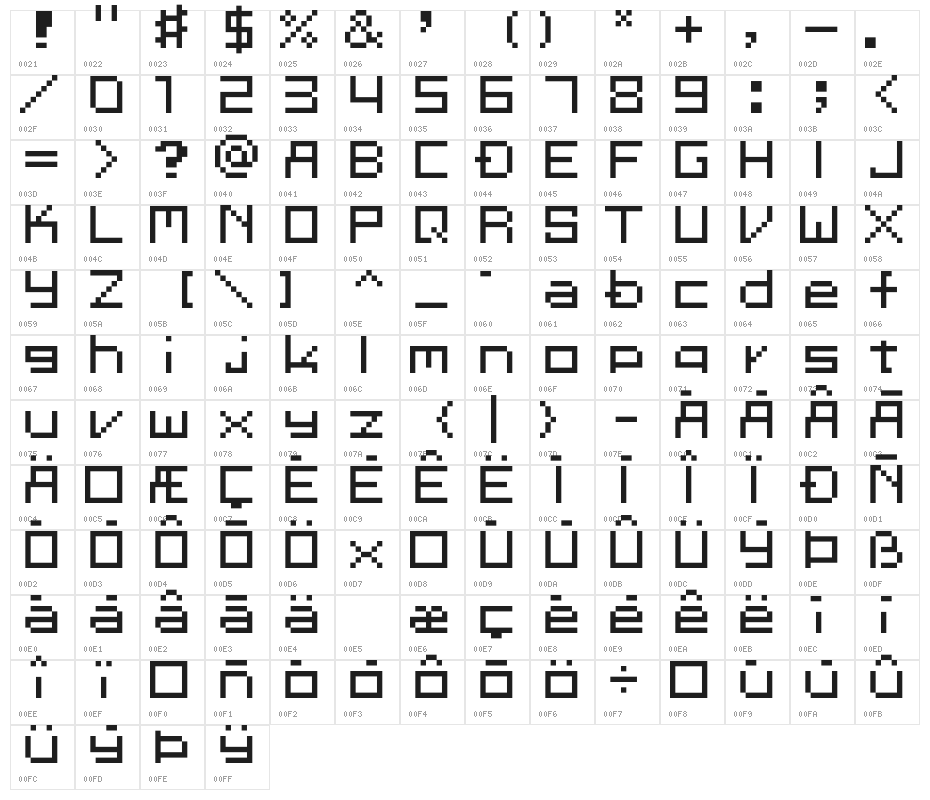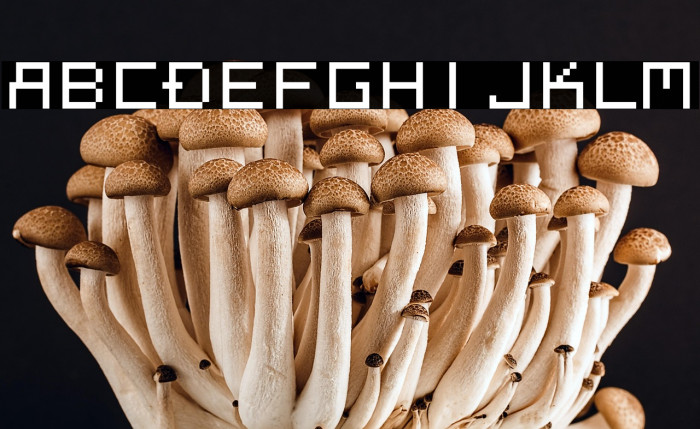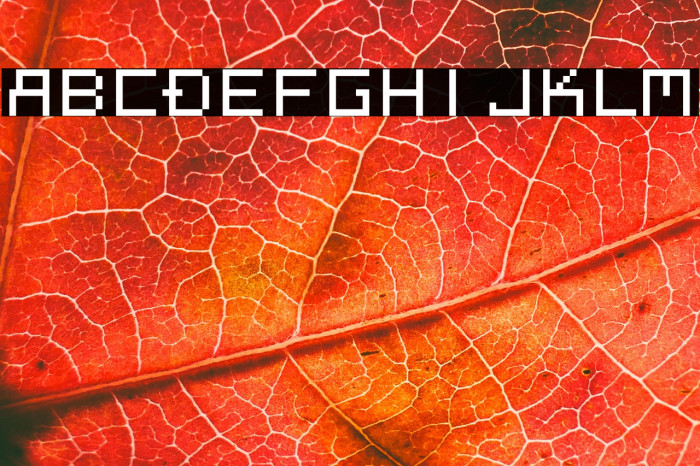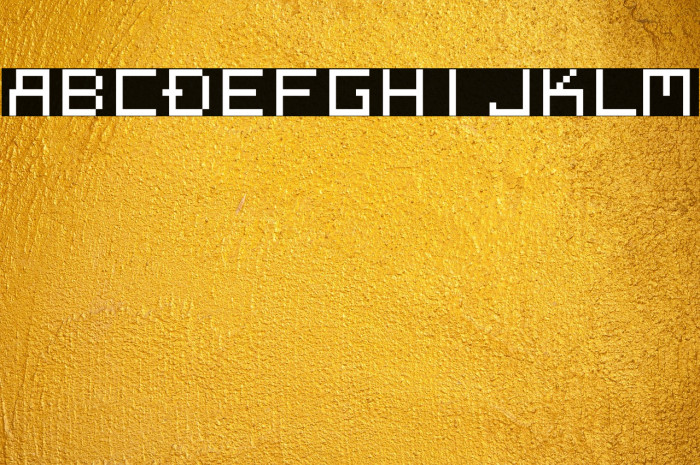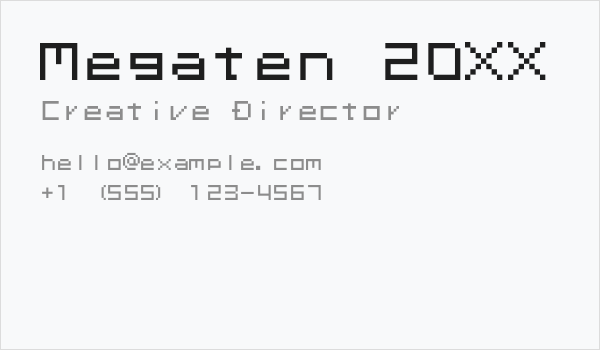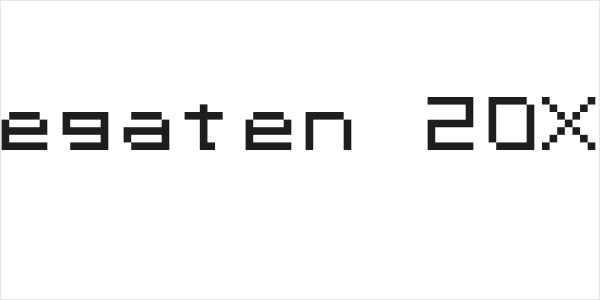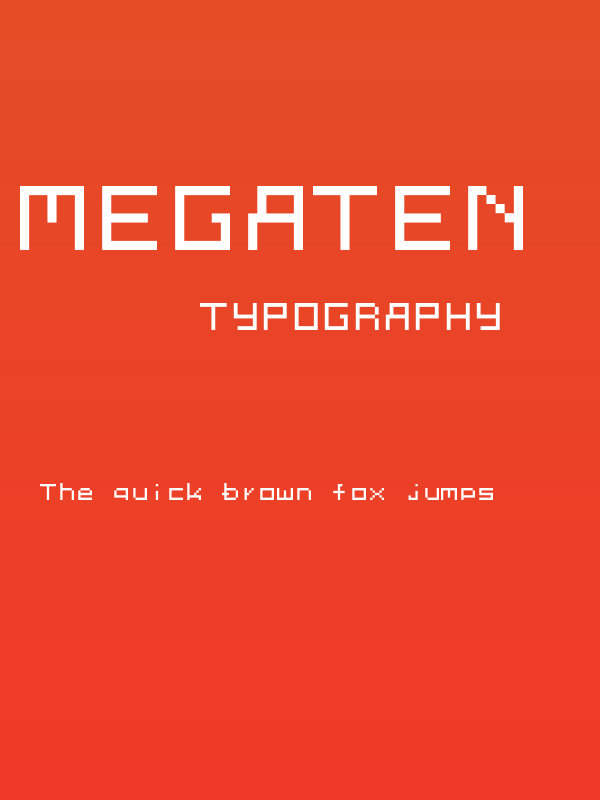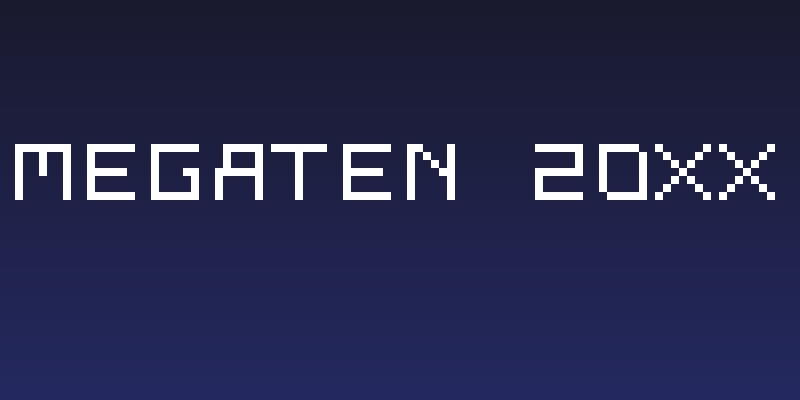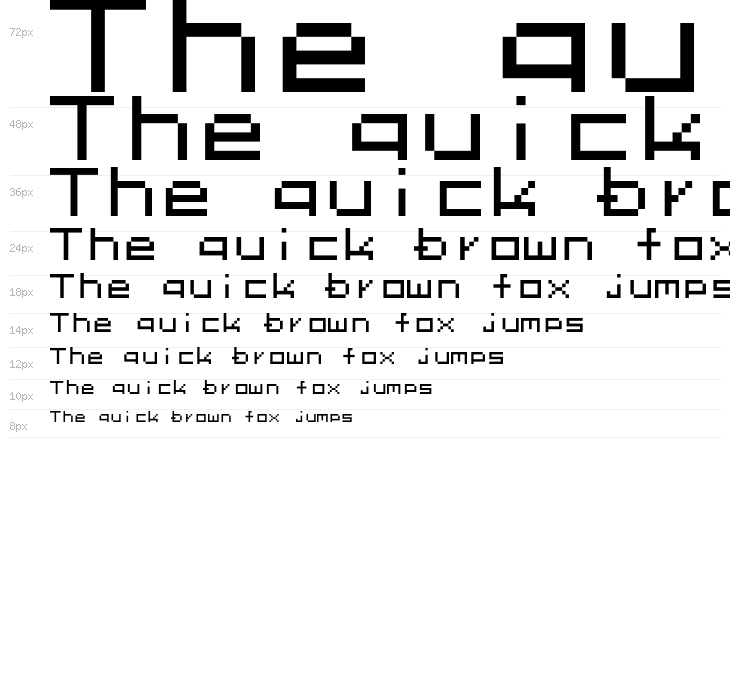
Megaten 20XX Font
Megaten 20XX Description
This font features a geometric, pixelated design that evokes a retro, digital aesthetic reminiscent of early computer graphics and video games. The characters are composed of uniform, square-like shapes, giving it a blocky and modular appearance. The uppercase and lowercase letters maintain a consistent height and width, contributing to a monospaced feel, although it is not strictly monospaced. The numerals and special characters follow the same design principles, ensuring a cohesive look across all glyphs. The font's simplicity and clarity make it highly legible, even at smaller sizes, while its distinct style adds a unique, nostalgic charm.
| Overall Style | Retro, Digital |
| Use Case | Headlines, Logos, Digital Art |
| Proposed Projects | Ideal for projects that require a retro or digital theme, such as video game design, tech-related branding, or digital art projects. |